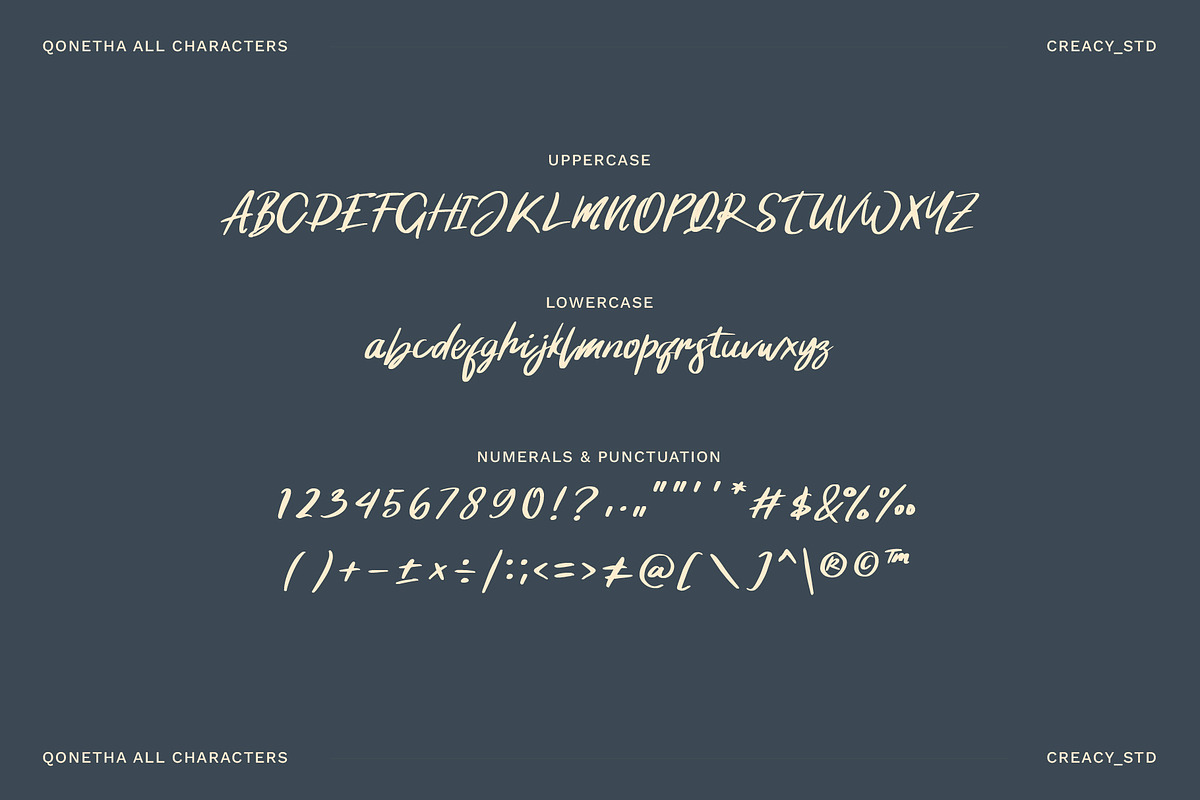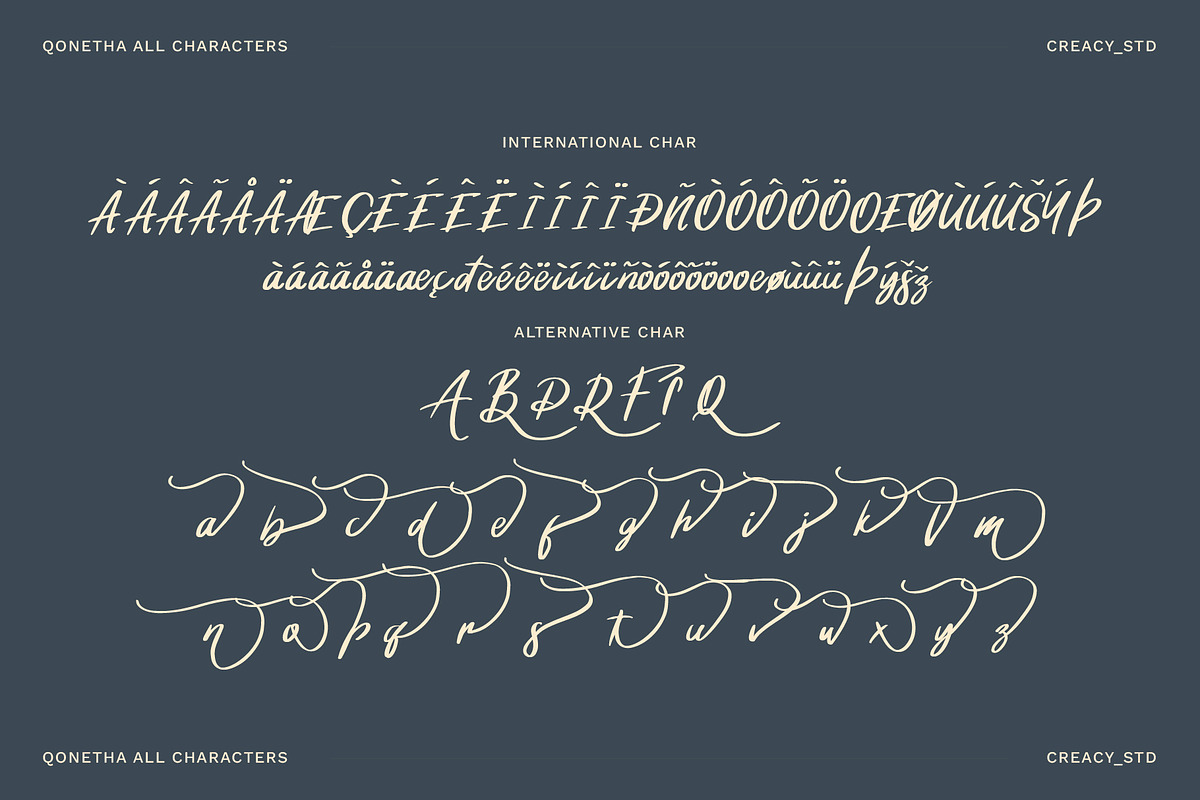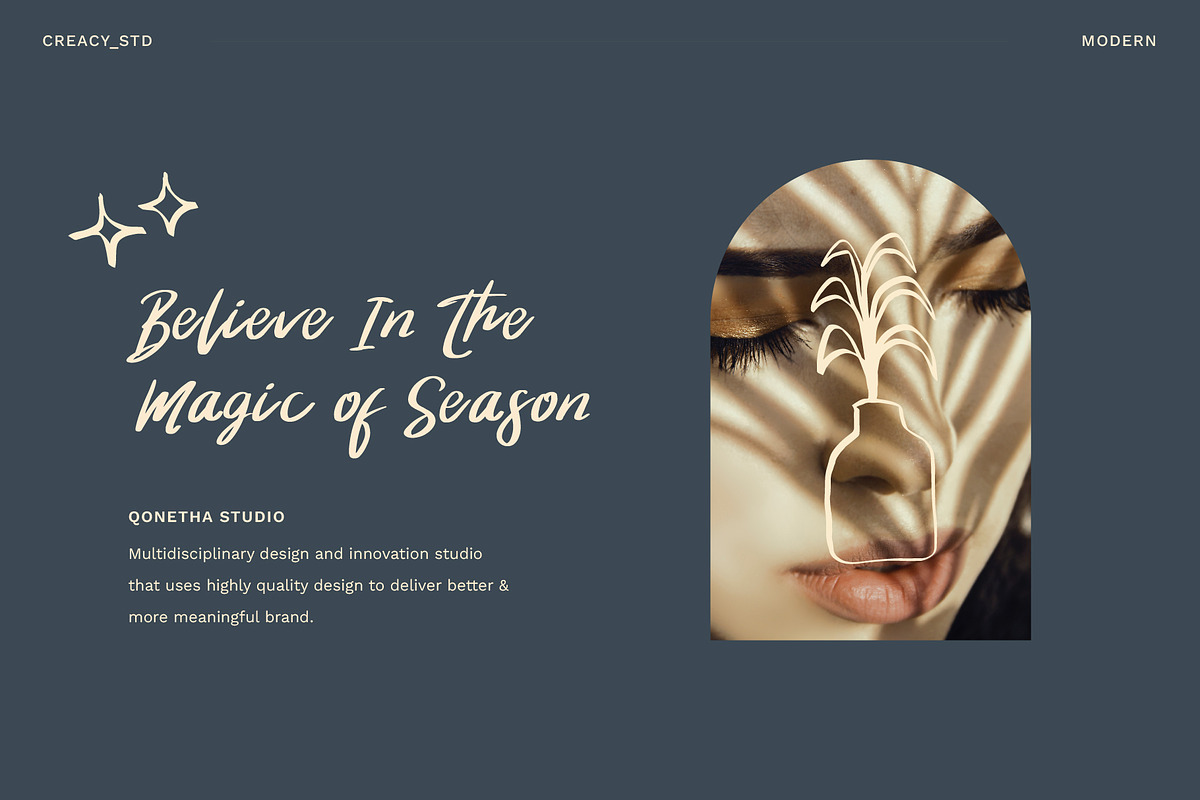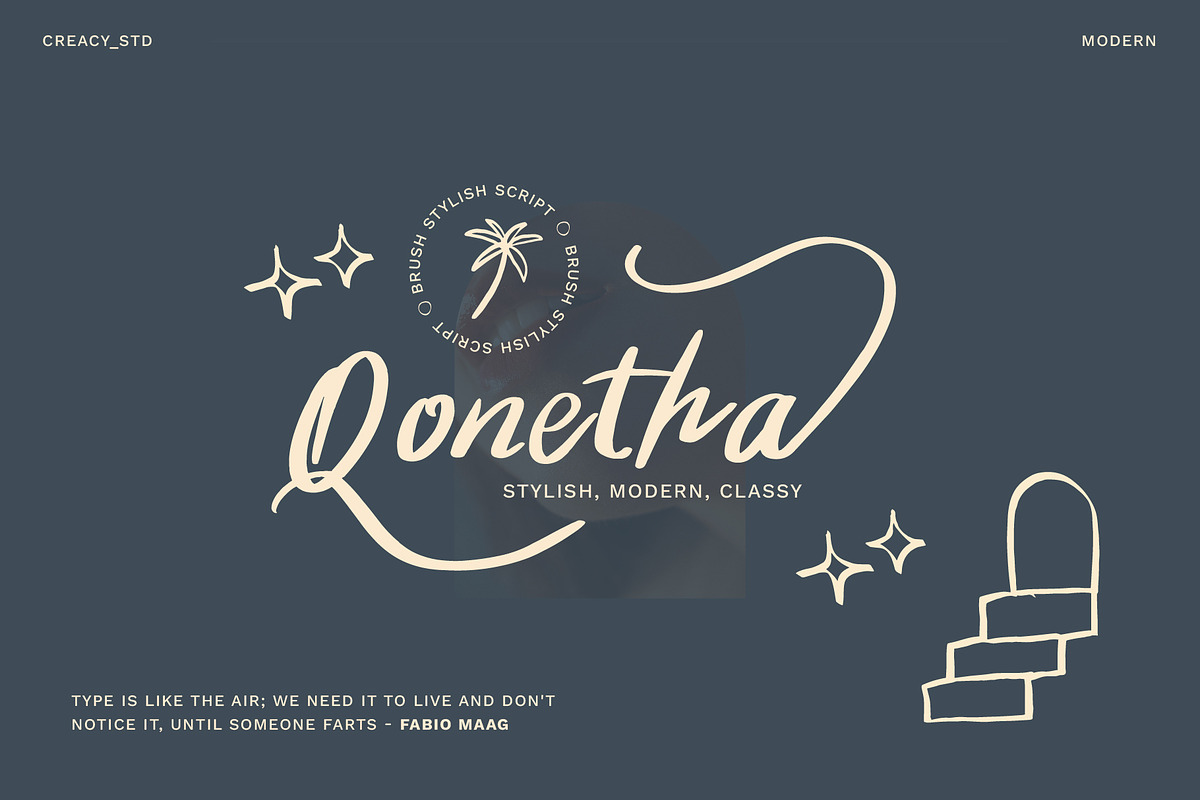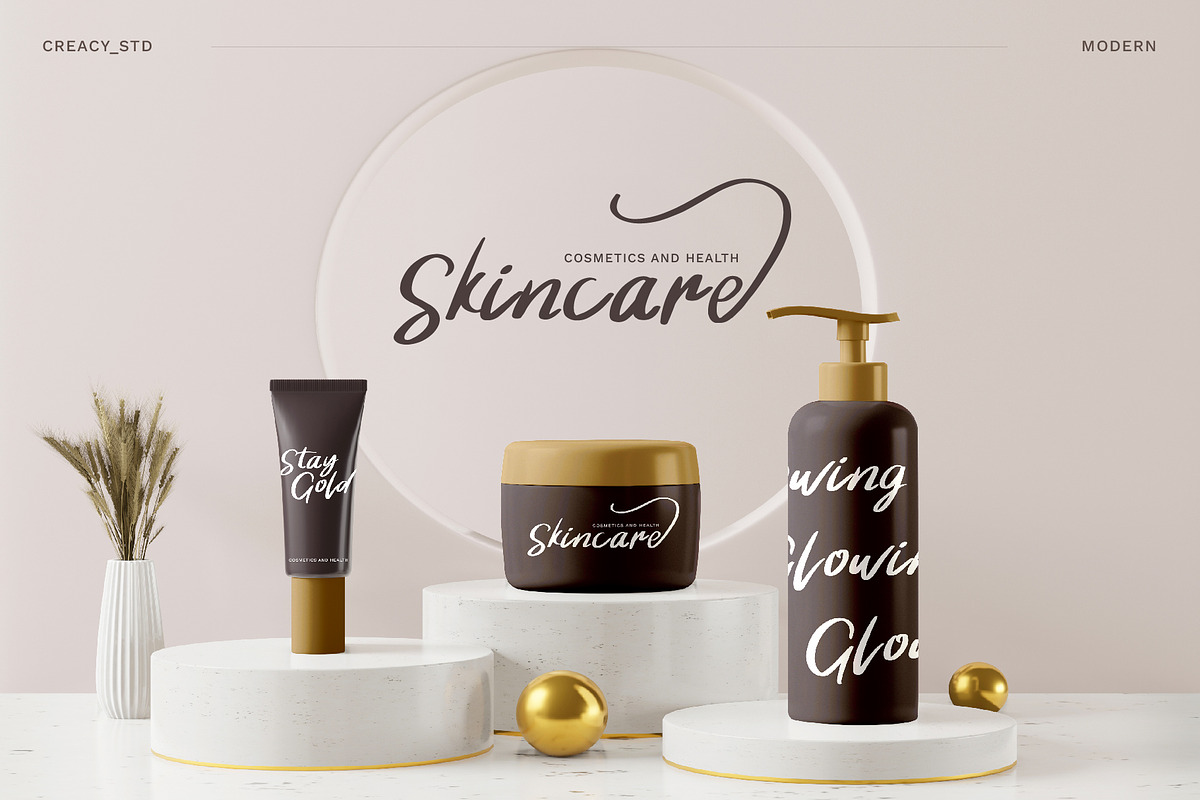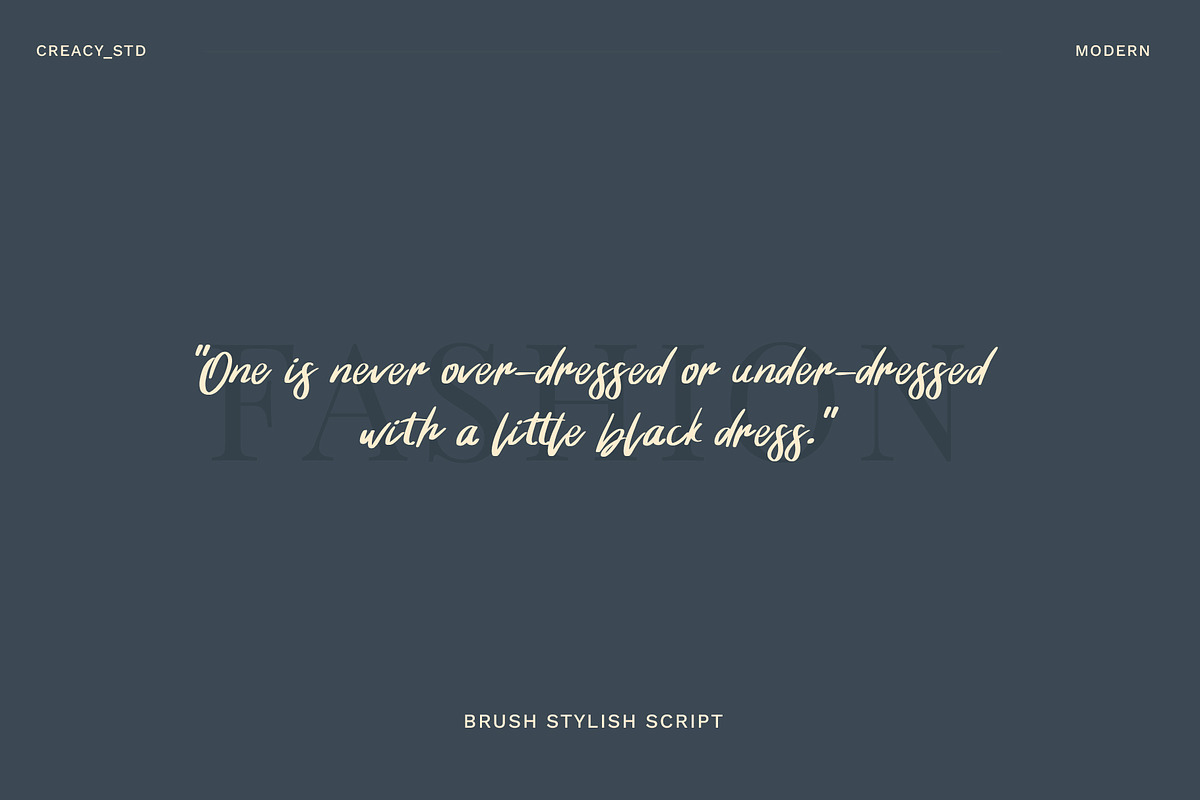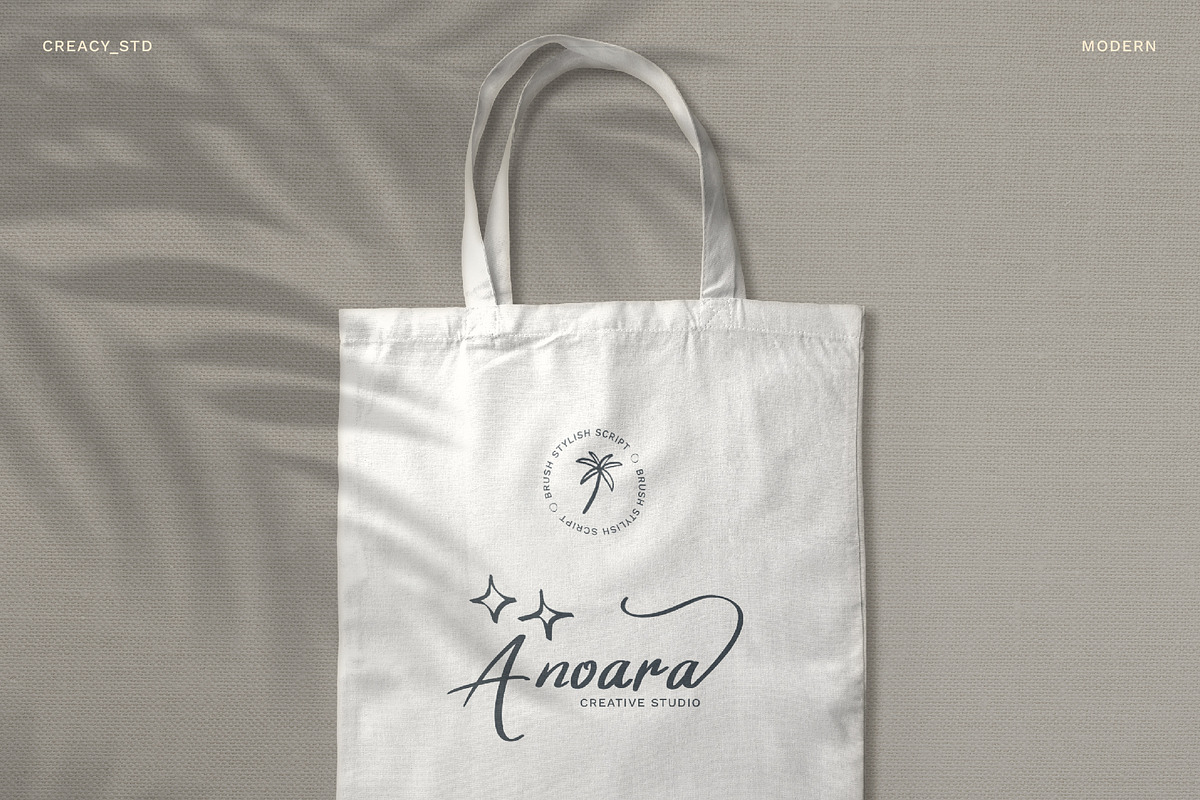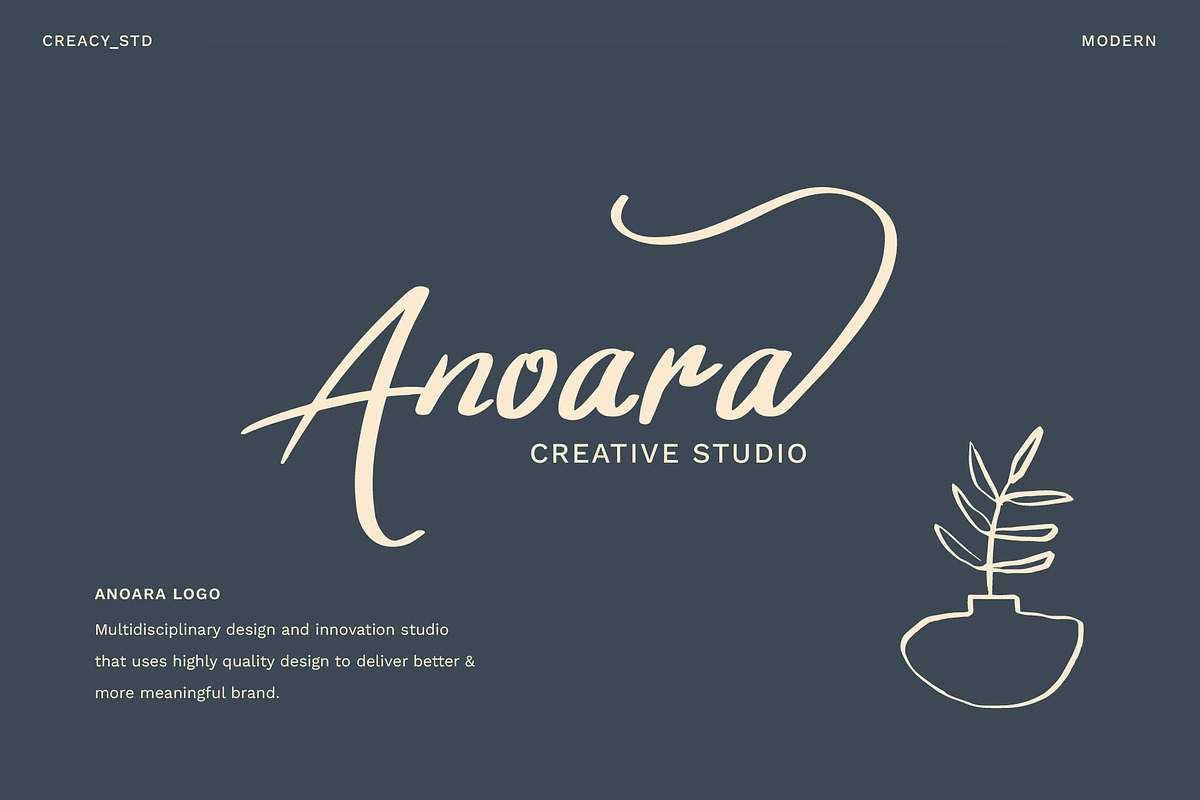
Qonetha - Brush Stylish Script
Qonetha - Brush Stylish Script consists of a fashionable sophisticated signature-style script with its own unique curves and an elegant inky flow.
Qonetha - Brush Stylish Script is perfect for branding projects, logos, wedding designs, social media posts, advertisements, product packaging, product designs, label, photography, watermark, invitation, stationery, and any projects that need handwriting taste.